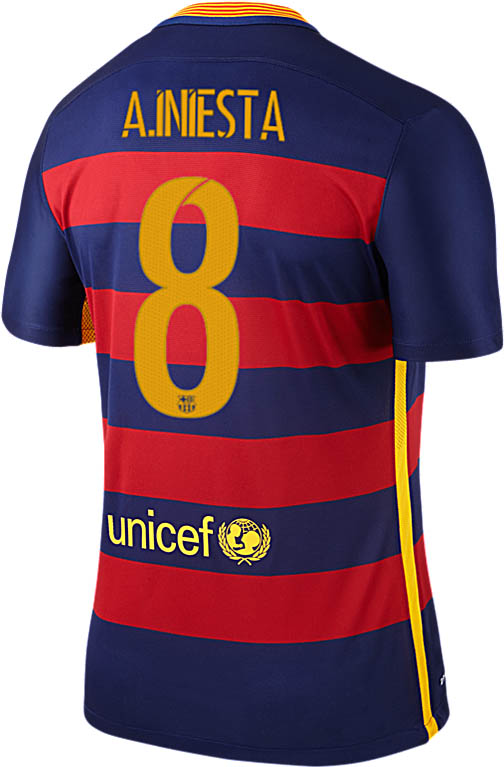
Barcelona Reveal New Typeface for 15-16 Kits
Barcelona this week released the new Barcelona 2015-16 Home and Away Kits by Nike. The new Nike Barcelona 15-16 Home Jersey boasts hoops for the first time in club history, inspired by the supporters' flags inside the stadium.
With the new Barcelona 15-16 Home Kit going on sale today, another interesting detail about the shirt emerged - Nike and the club designed a new typeface for player names and numbers.
Barcelona 15-16 Kit Font
The new Barcelona 15-16 Home Kits for Andrés Iniesta, Lionel Messi and Luis Suárez, featuring the redesigned typeface.
Barcelona used the previous font, designed by local studio Vasava, for the last three seasons. Inspired by the shapes of La Pedrera, a modernist building in Barcelona by Antoni Gaudí, the Barcelona 2012-15 font appears to have roughly inspired the new Barcelona 15-16 Kit typeface.
The new Barcelona shirt numbers and names boast a more modern and streamlined look, while trying to conserve the very unique look the previous style had.
Additionally to the new font, the player names and numbers on the new Barcelona 15-16 Kits feature a new ventilation system which helps to reduce moisture by utilizing perforated numbers and letters, already seen on the Nike 2014 World Cup kits.